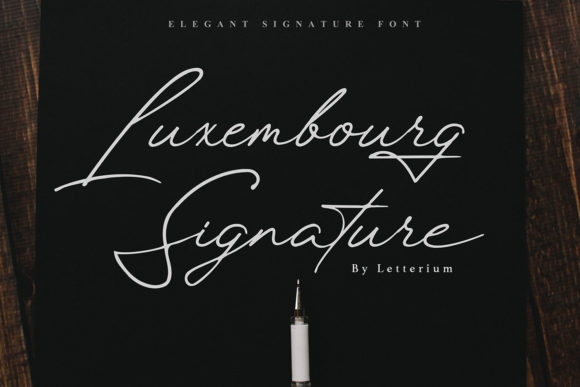
In the realm of fonts, Luxembourg Signature stands as a masterpiece that embodies both timeless elegance and modern chic. Its graceful, handwritten strokes dance across your designs, effortlessly evoking a sense of heartfelt connection.
Picture this: the heartfelt warmth of a handwritten birthday invitation, the sophisticated charm of a wedding announcement, or the alluring intrigue of a personalized letter. Luxembourg Signature transforms these moments into treasured keepsakes, forever etched with the essence of your emotions.
Crafted with meticulous care by the renowned letteriumstudio, Luxembourg Signature boasts a versatility that knows no bounds. Its flowing script dances across letterheads, adding a touch of sophistication to your correspondence. It lends a whimsical touch to titles, captivating readers with its effortless allure. And when it graces the pages of your stationery, it becomes a timeless heirloom, whispered secrets encoded in its graceful curves.
But it's not just its versatility that sets Luxembourg Signature apart. It's the emotion it evokes, the stories it tells. Its strokes embody the warmth of a heartfelt note, the joy of a celebratory announcement, the intimacy of a handwritten letter.
Imagine your designs adorned with this exceptional font, each brushstroke a testament to your impeccable taste and boundless creativity. Luxembourg Signature is not just a font; it's an expression of your heartfelt emotions, an indelible mark that you leave upon the world.
Indulge in the beauty of Luxembourg Signature today, and let its elegant strokes elevate your designs to new heights of sophistication and allure.